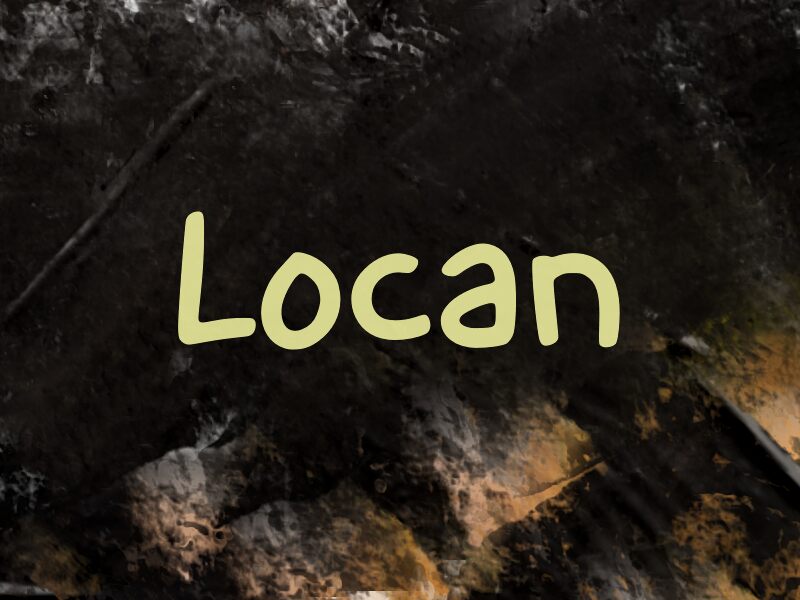
L Locan font designed by wep is a cartoon, informal font with a casual and friendly appearance. It is a free font with a style that is warm and inviting, making it an excellent choice for contemporary applications in branding or advertising.
It would be ideally suited for children’s products, casual content, and informal communication. Use this font to create branded designs, product packaging, posters, book covers, or websites. Use it also in magazines, social media, video compilations, apparel designs, or even presentations and digital artwork.
Locan is a captivating free font that combines elegance with modernity, perfect for a wide range of design projects. Its distinctive style features clean lines and graceful curves, making it an excellent choice for both headlines and body text. Whether you're designing a website, poster, or branding material, Locan adds a touch of sophistication to your visuals.